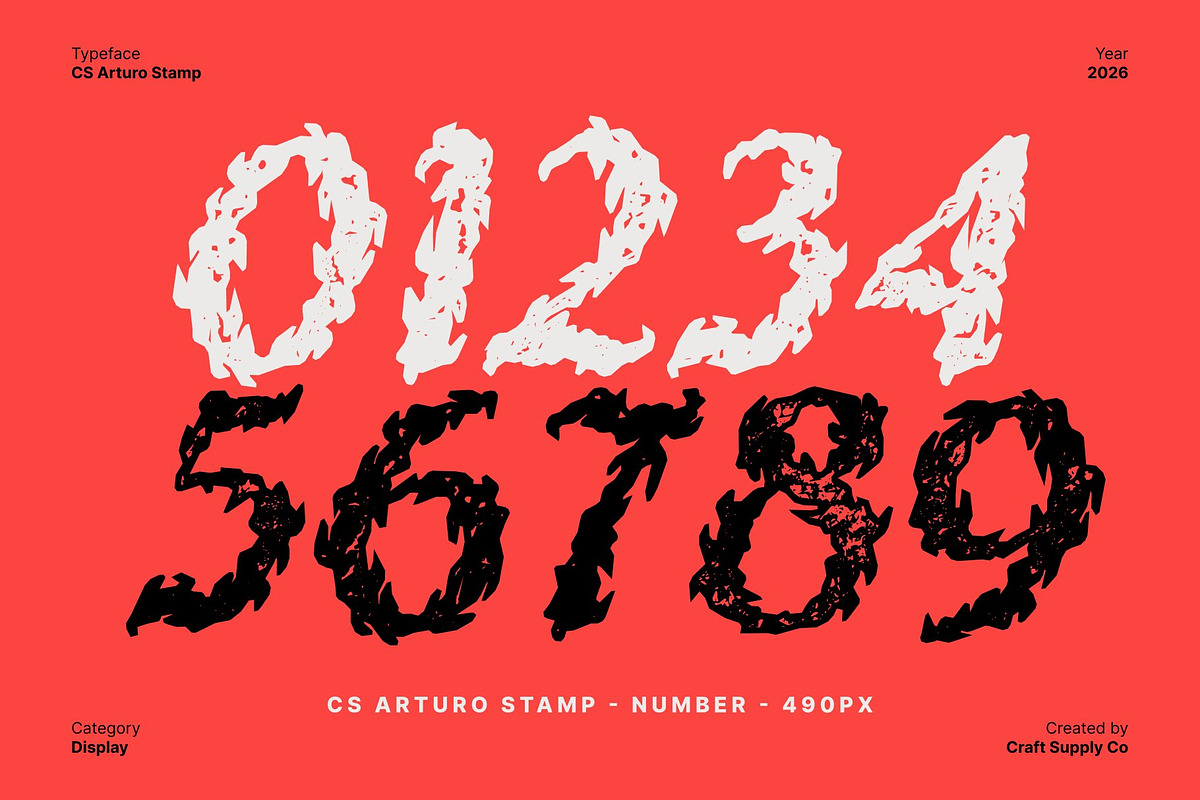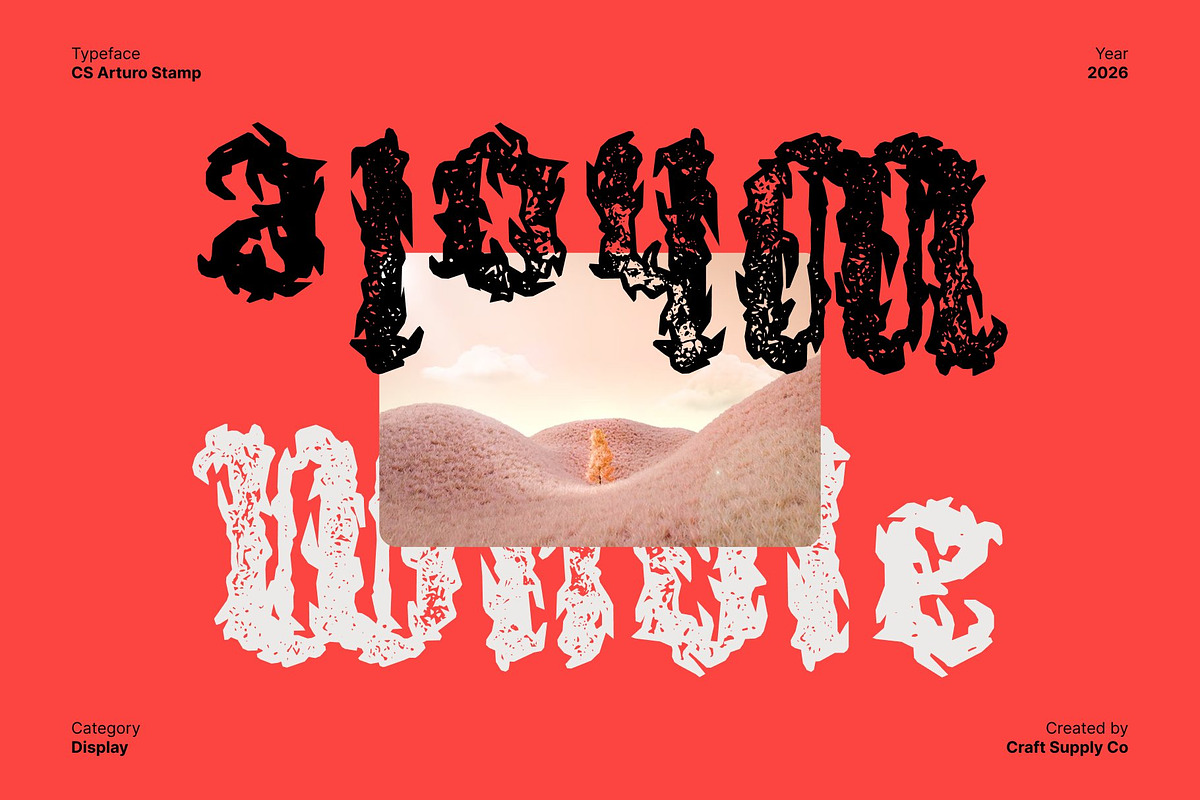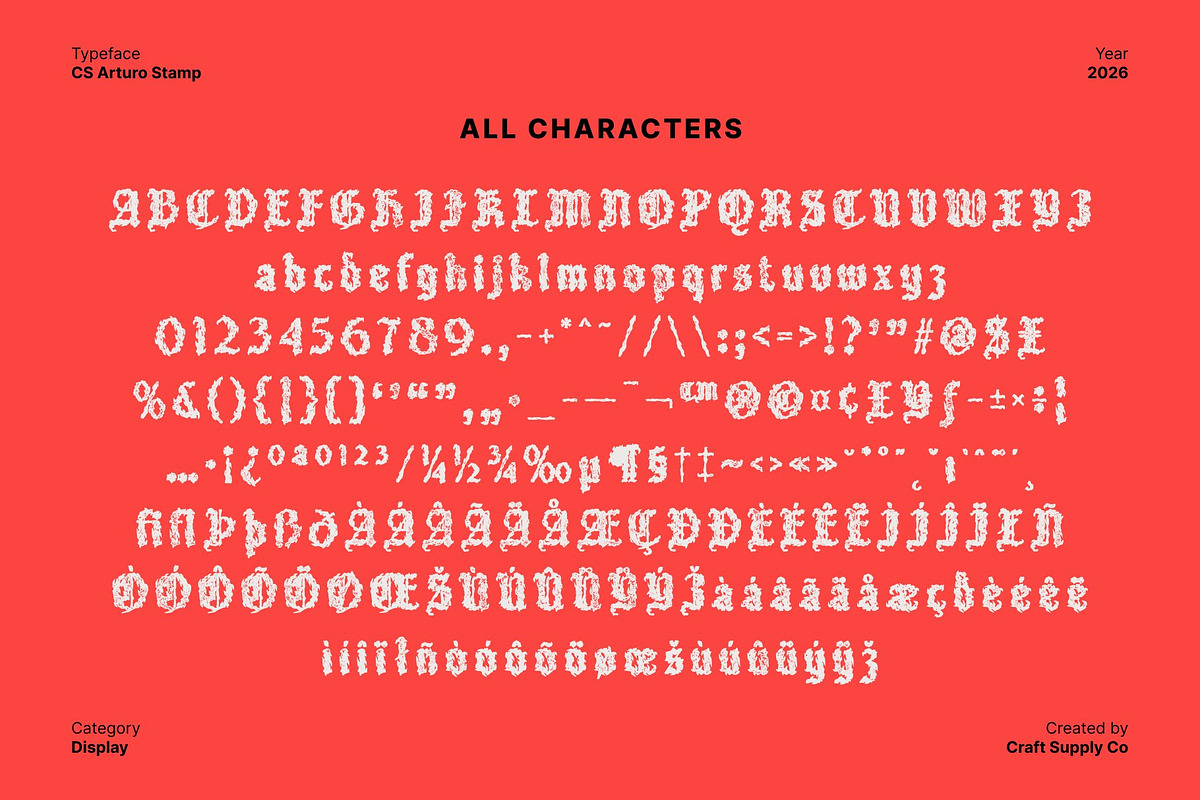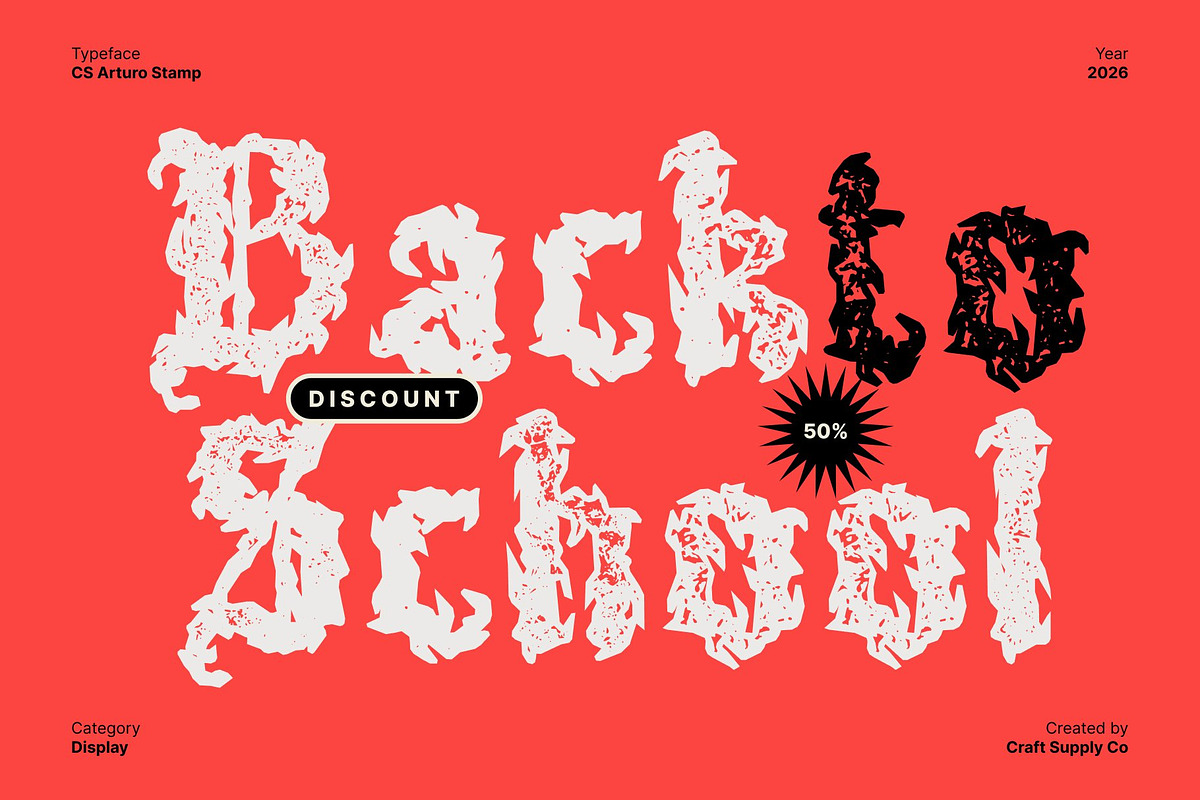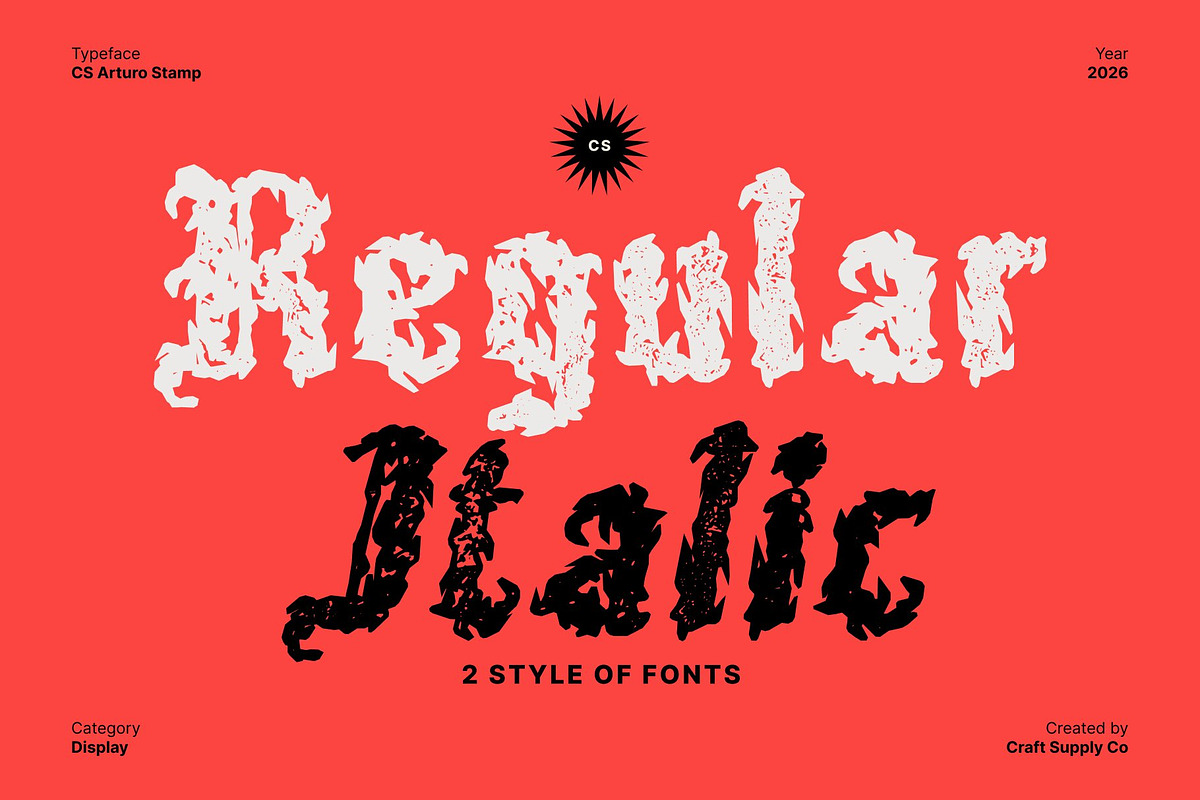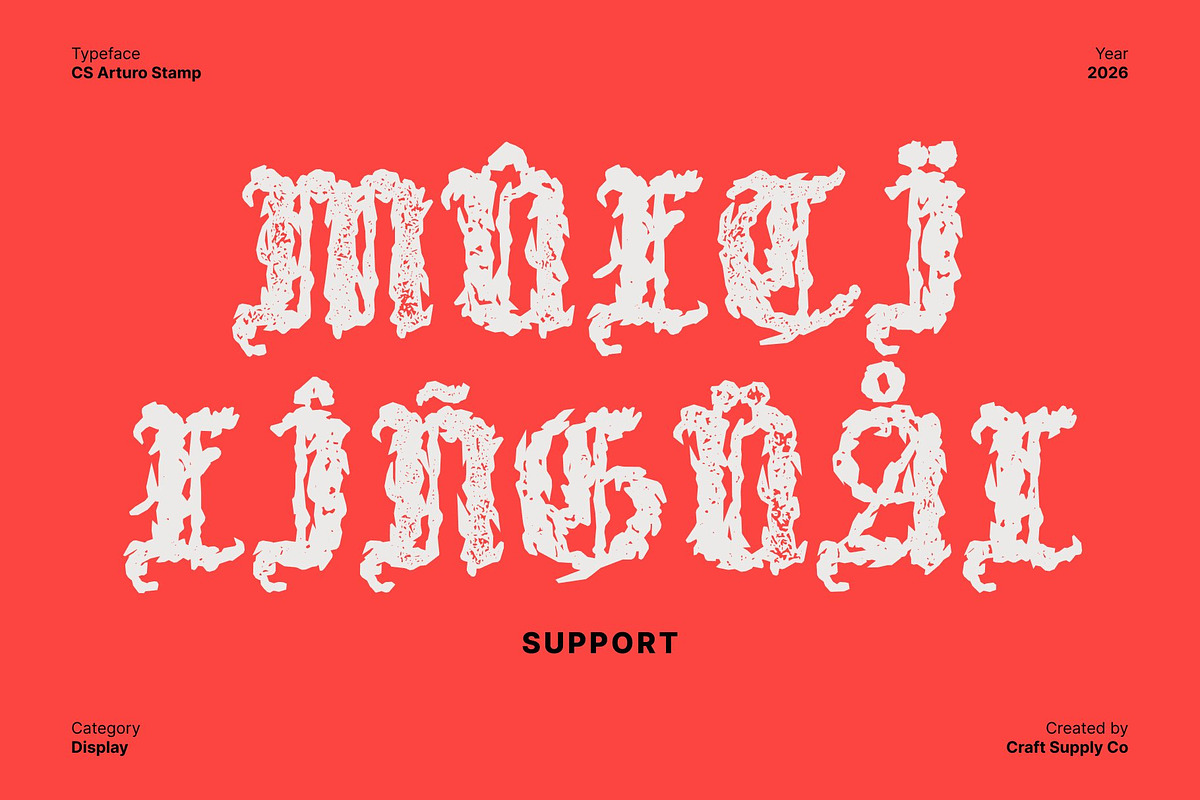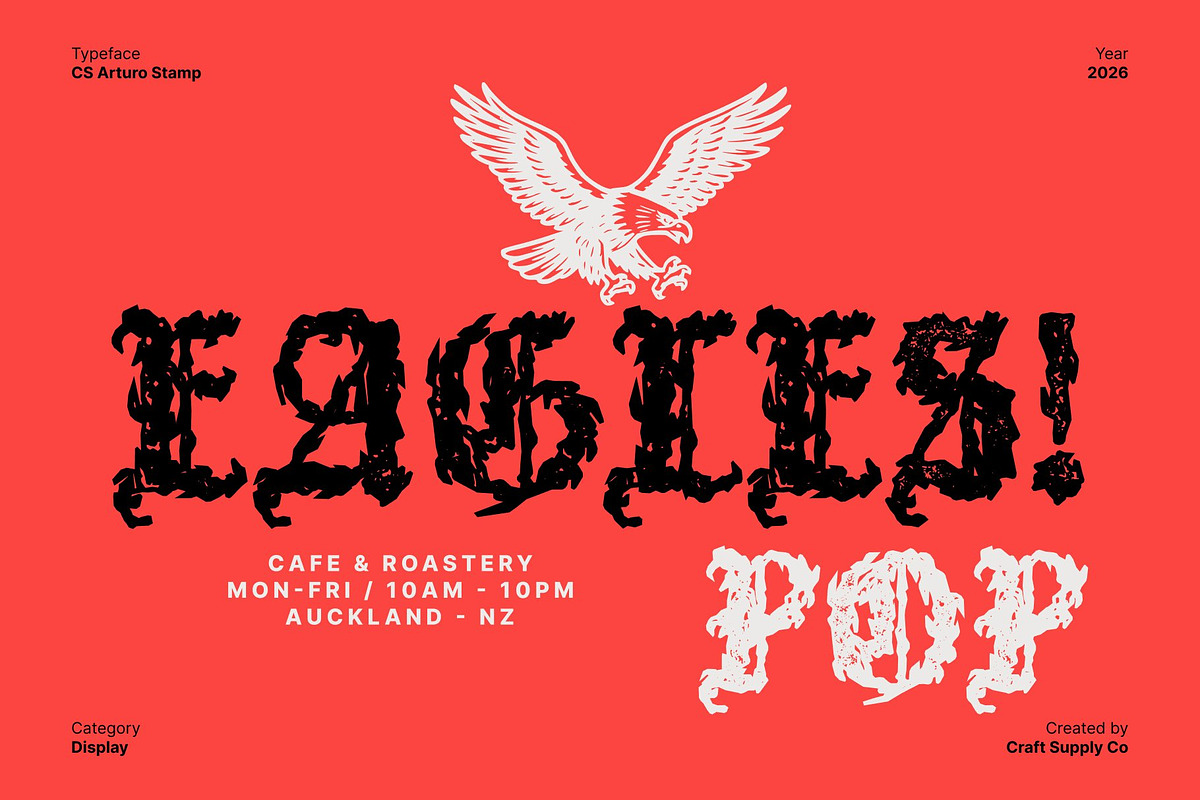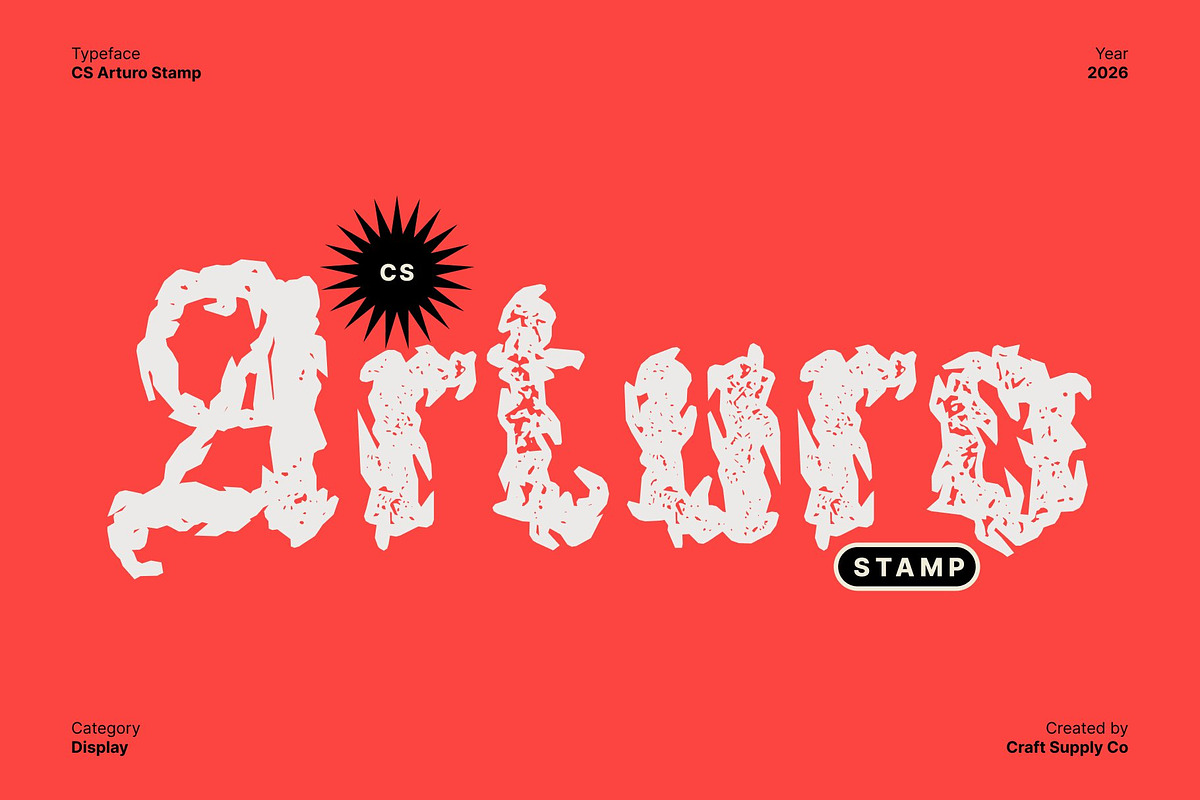
CS Arturo Stamp
CS Arturo Stamp – Black Metal Font: Dark, Powerful, and Uncompromising
Aggressive Black Metal Aesthetic This is a black metal display font forged to embody raw power, darkness, and extremity. Defined by sharp, jagged edges and pointed, chaotic strokes, this typeface channels the brutal spirit of black metal culture. Its letterforms resemble twisted roots, shattered symbols, and occult markings evoking an atmosphere that feels sinister, ancient, and untamed.
Stamped Texture with Decayed Intensity The stamped effect adds a rough, uneven texture that amplifies the font’s destructive character. Slight imperfections, worn edges, and distressed surfaces give a gritty, aged appearance, as if carved, burned, or eroded over time. This texture enhances its underground authenticity, reinforcing a sense of rebellion, decay, and raw expression.
Artistic and Symbolic Letterforms More than functional typography, this font acts as a visual artifact. Its thorn-like structures and fragmented shapes turn each letter into an expressive symbol rather than a conventional character. This highly stylized approach makes the font bold, confrontational, and unapologetically extreme perfect for designs that prioritize mood and impact over readability.
Perfect for Black Metal, Gothic, and Occult Designs This is ideal for black metal band logos, album covers, concert posters, merchandise, and dark visual identities. It excels in gothic, horror, and occult-themed projects that demand intensity and atmosphere. Due to its aggressive and abstract nature, the font is best suited for headlines and logo work where visual power and identity take precedence.